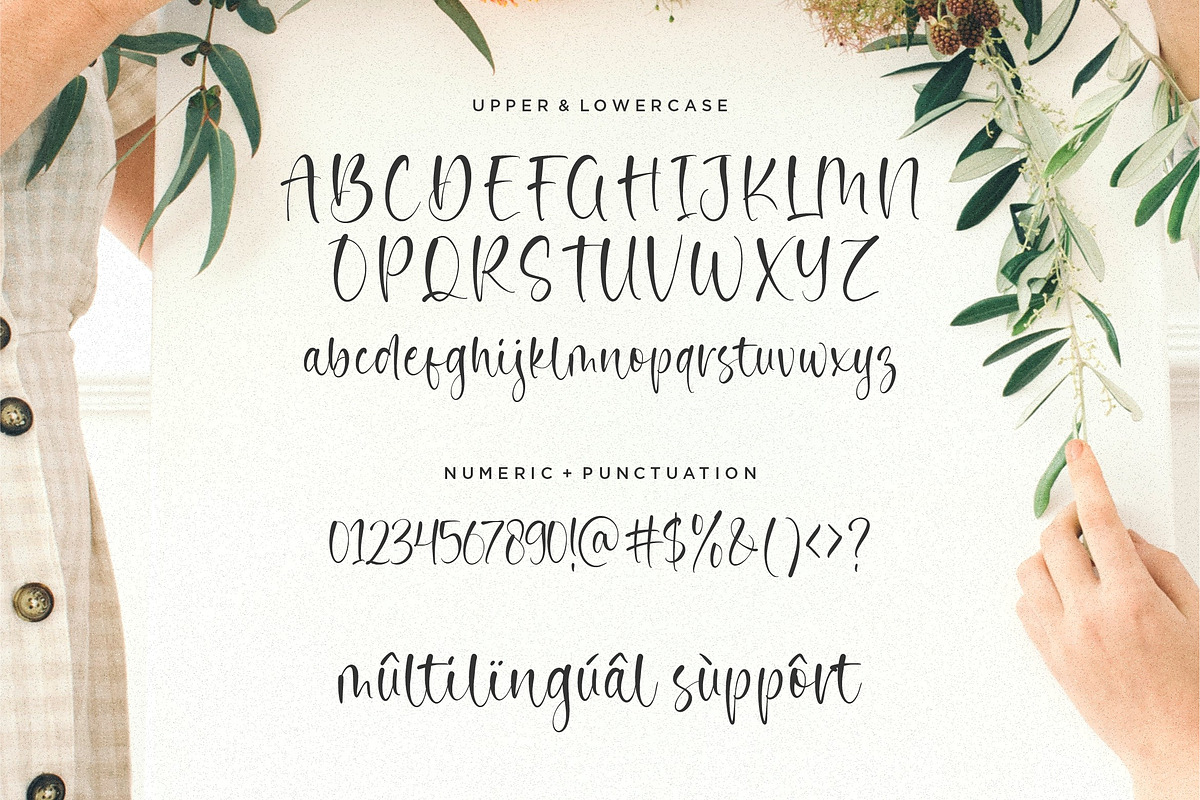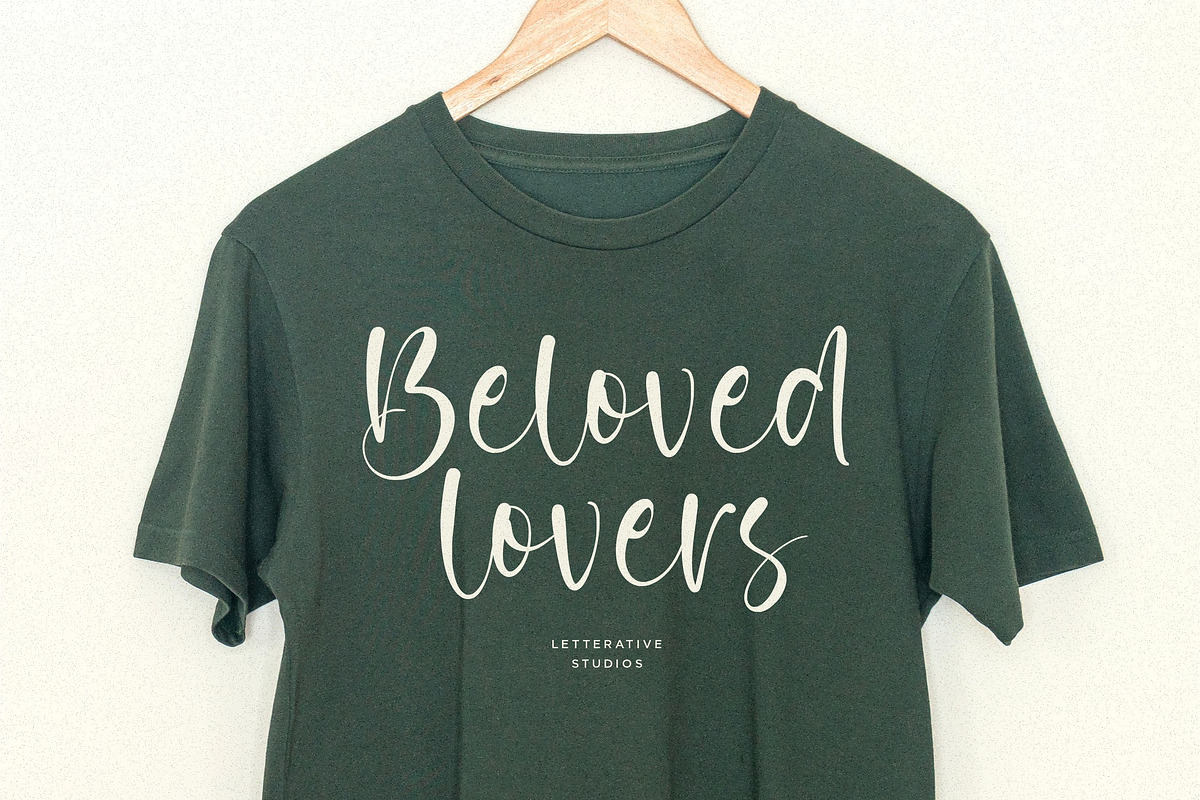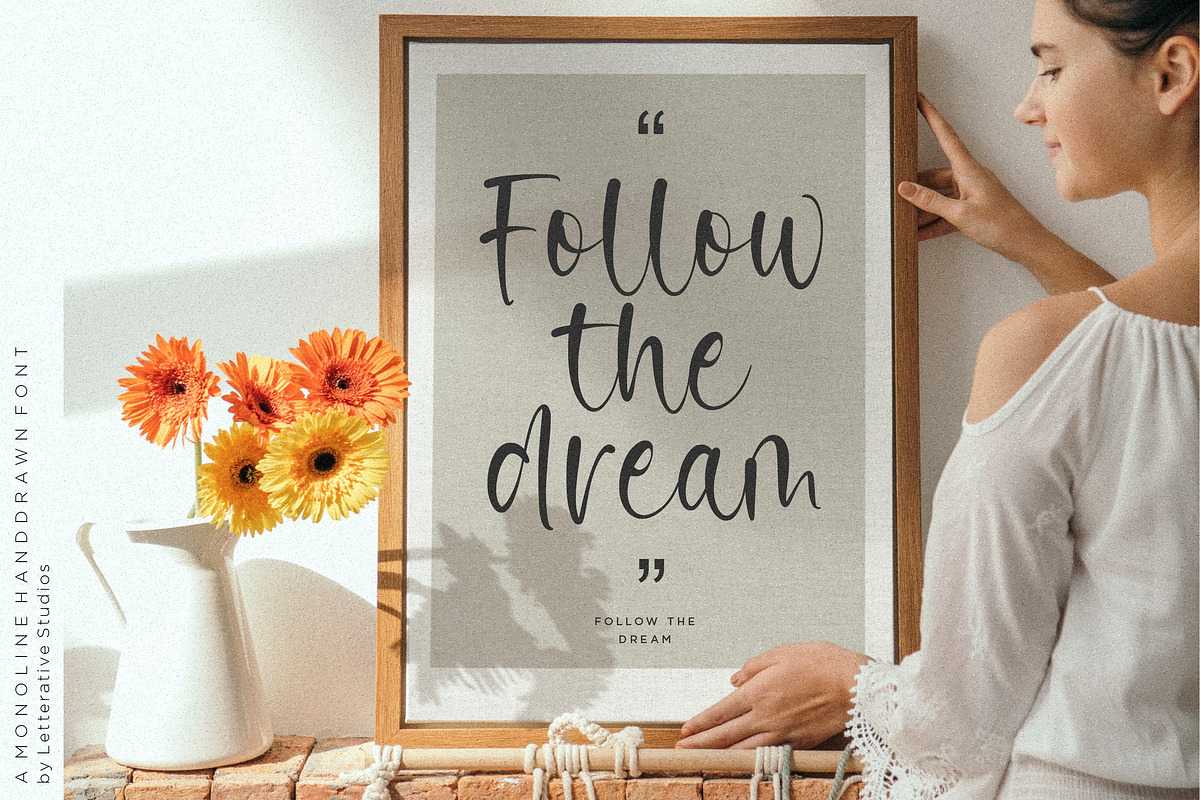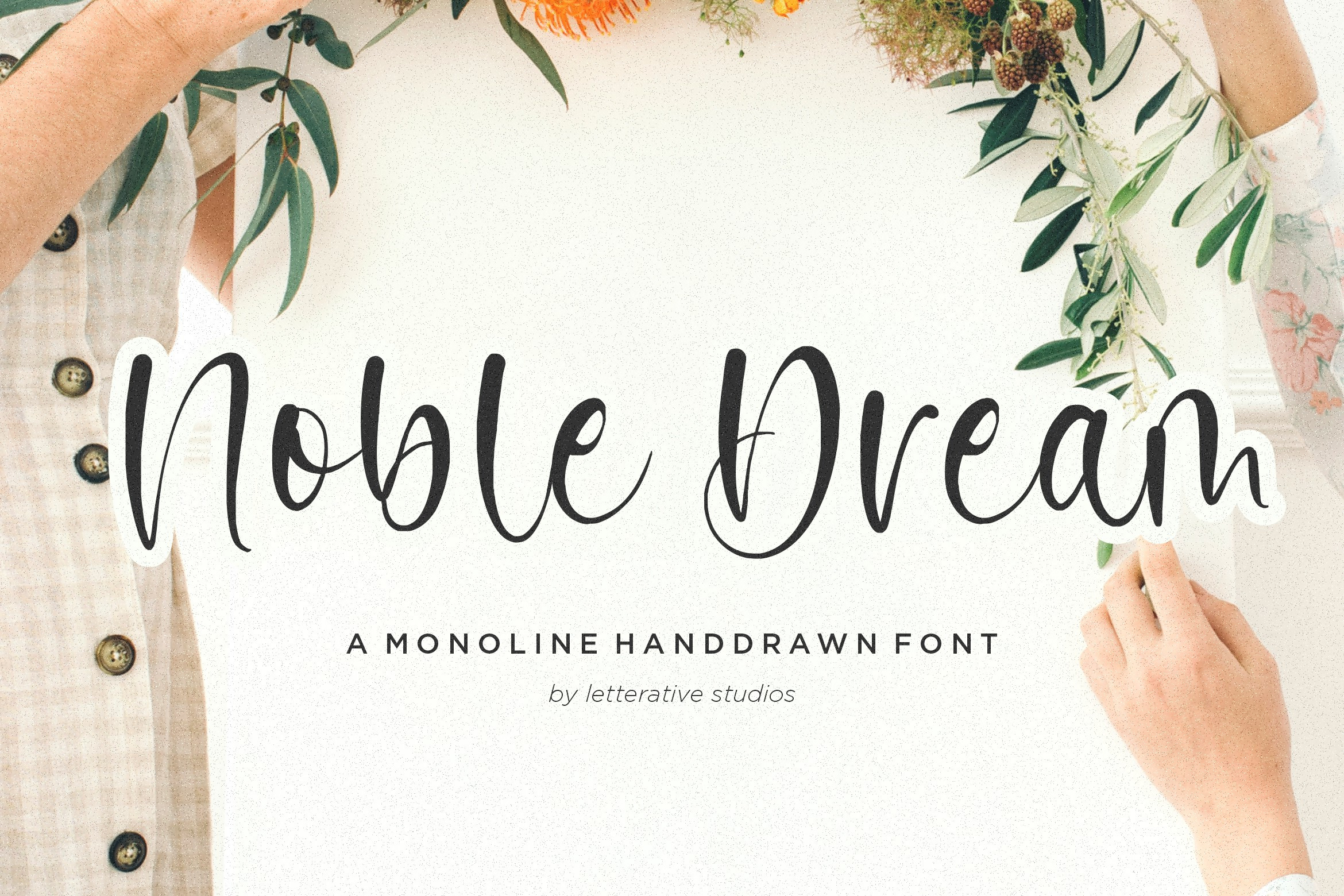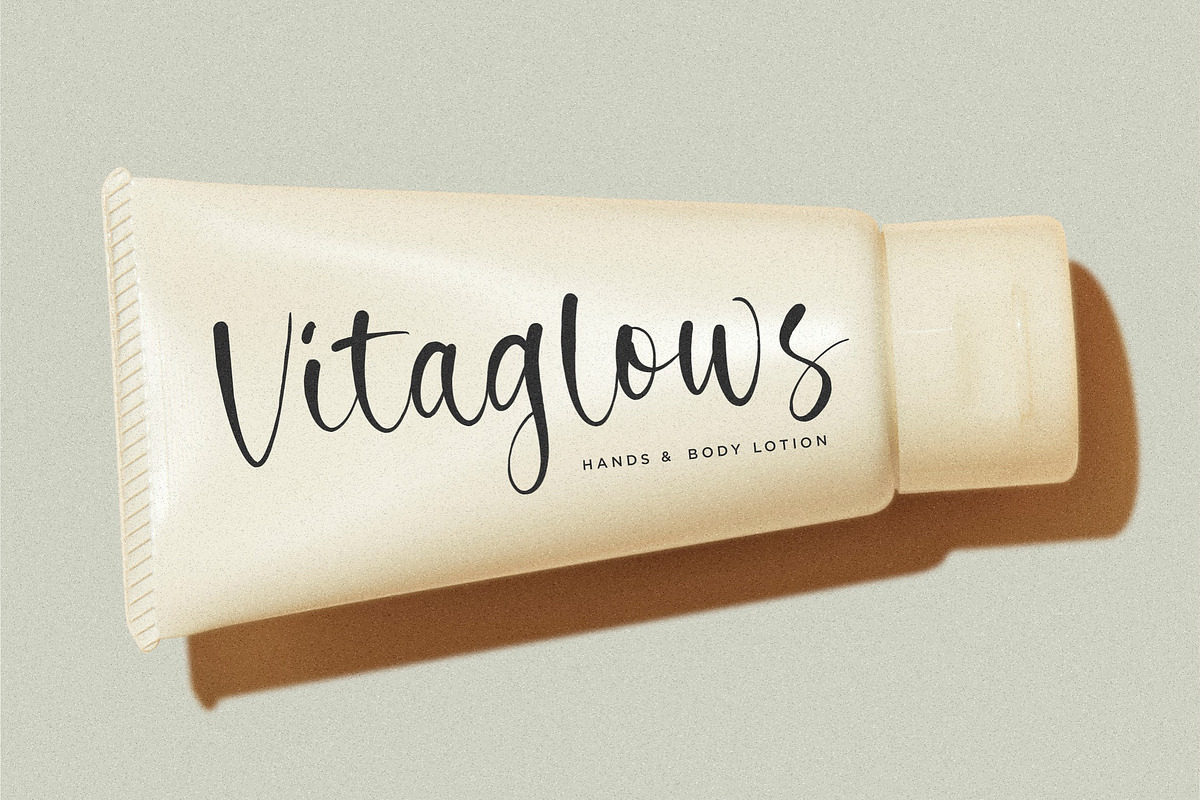
Noble Dream - Handdrawn Font
Introducing by Letterative Studio : Noble Dream Font
Noble Dream is perfect for product packaging, branding project, megazine, social media, wedding, or just used to express words above the background!